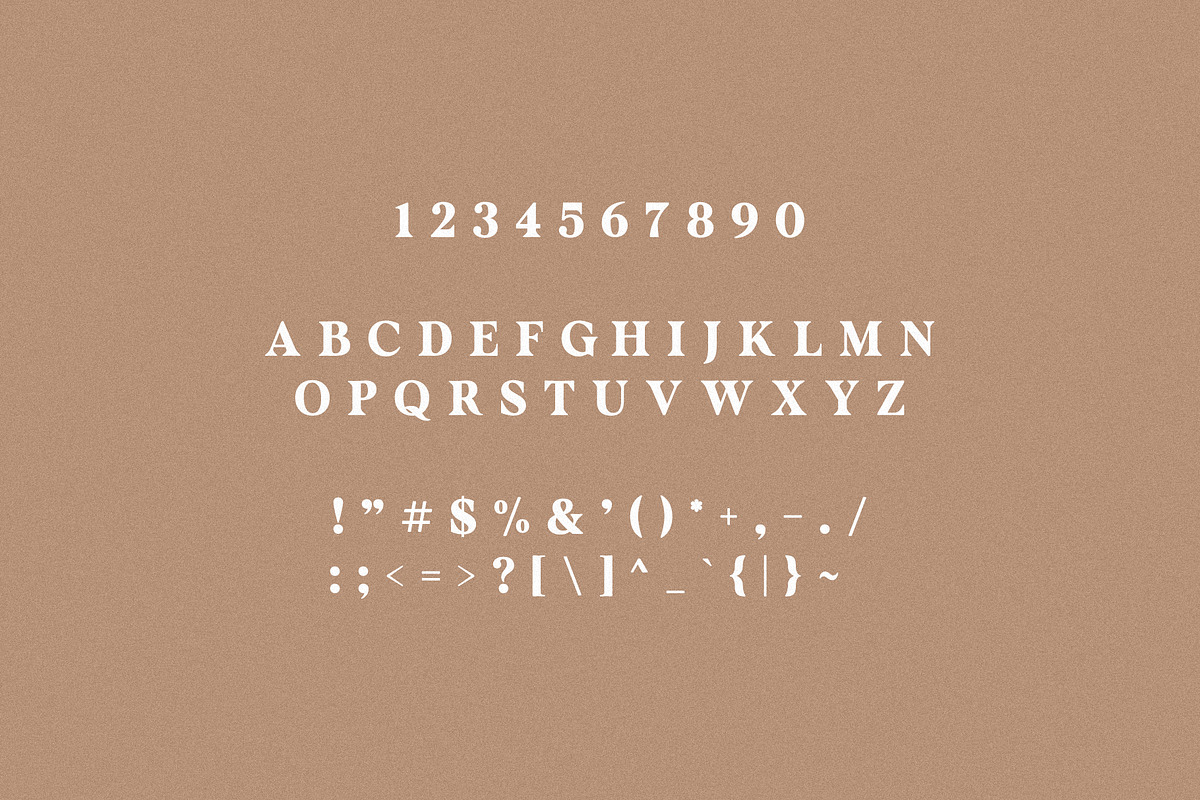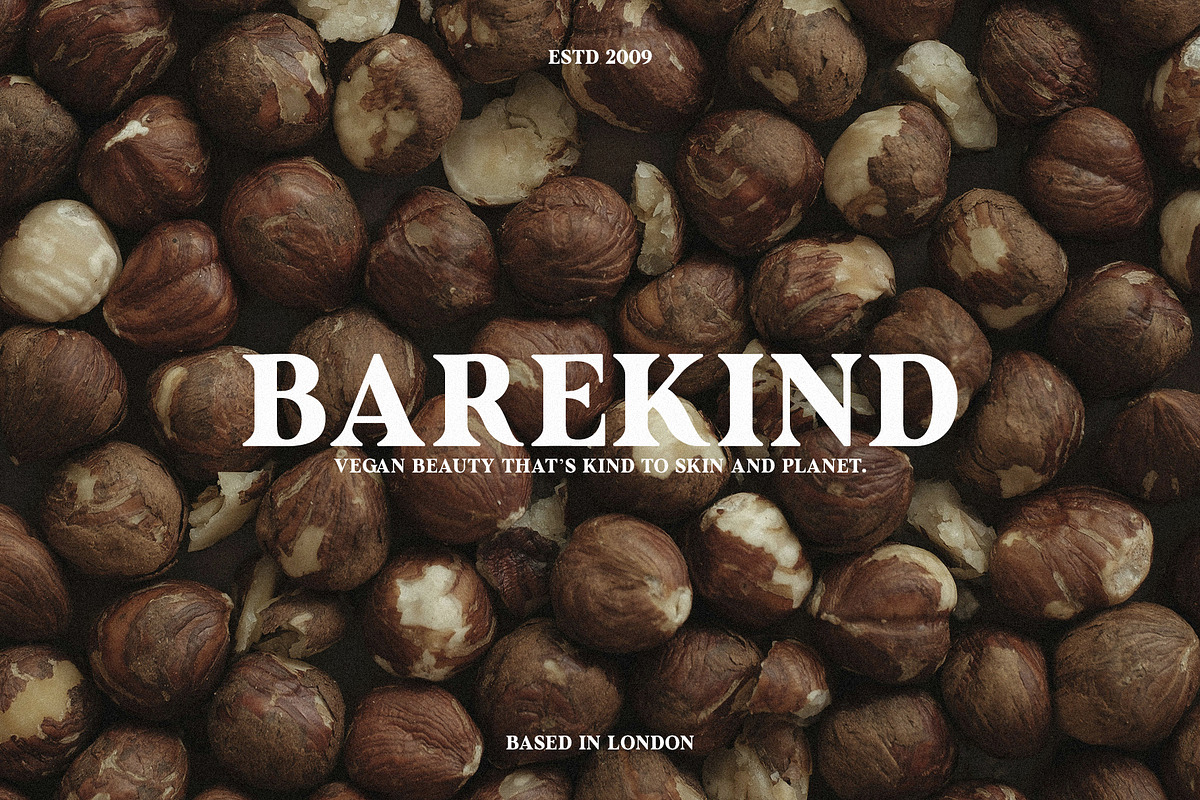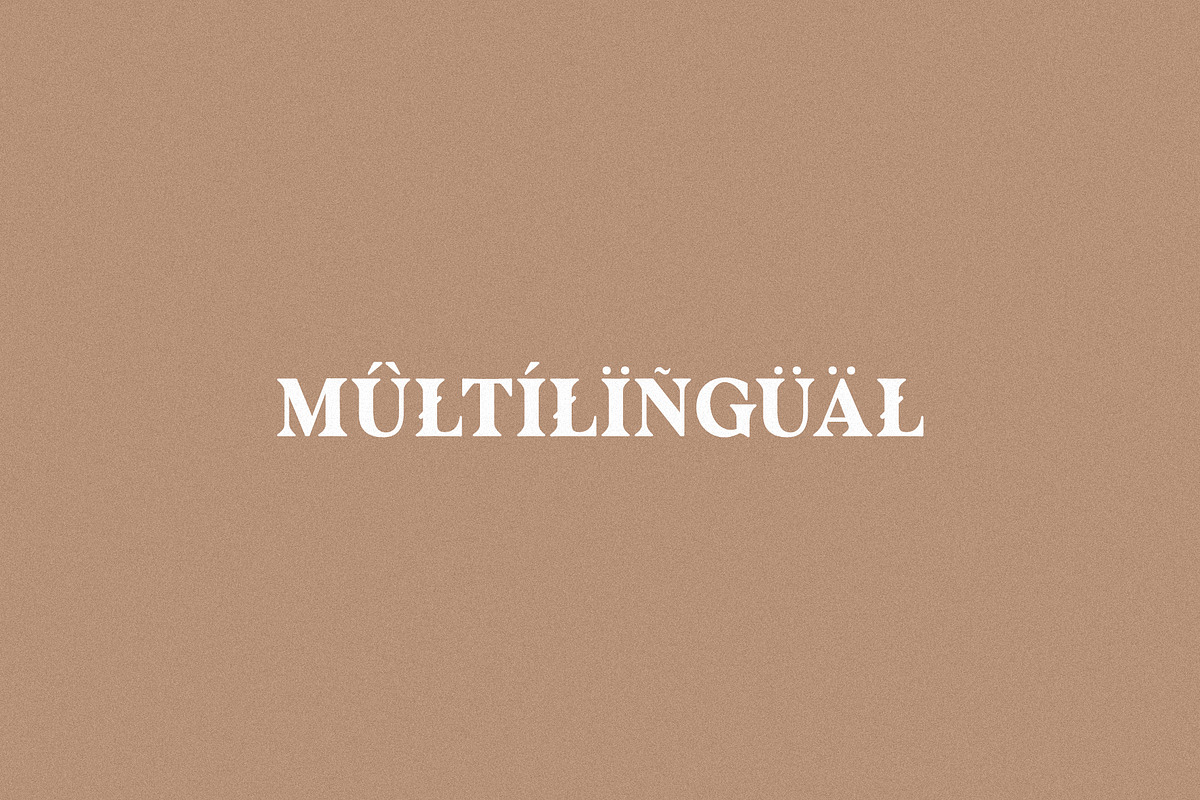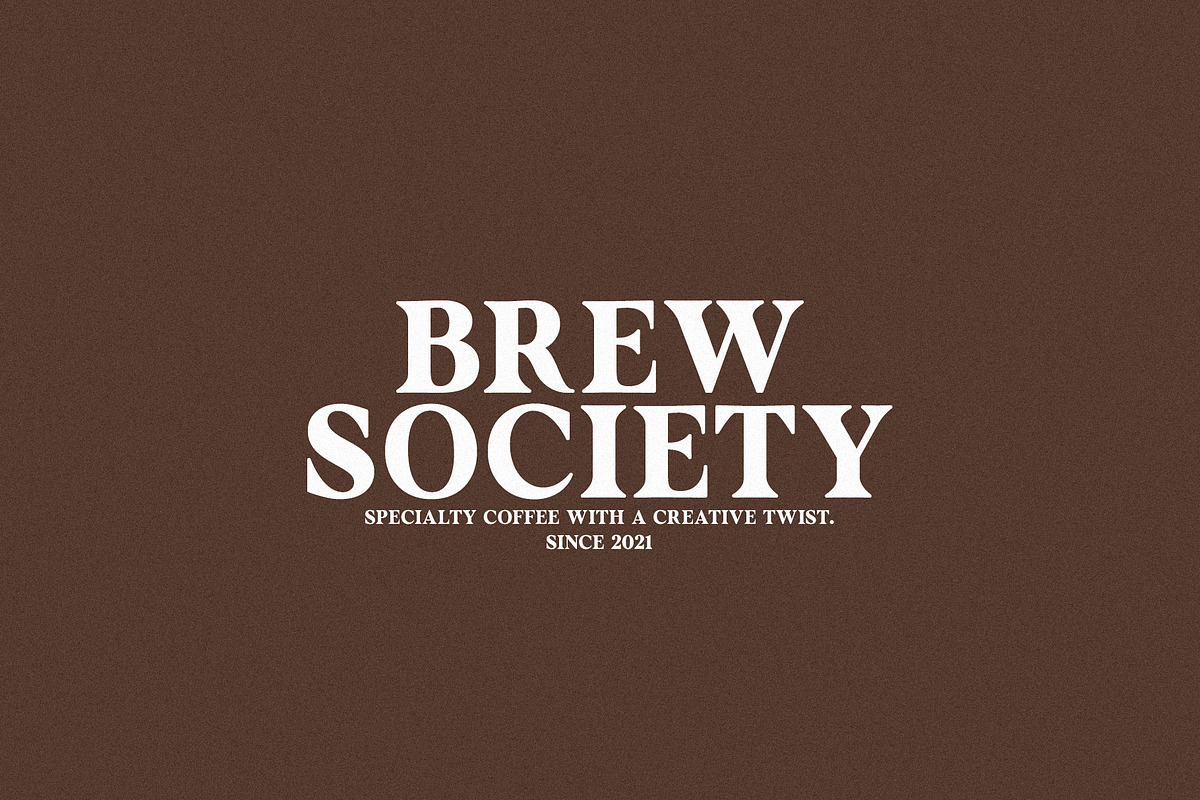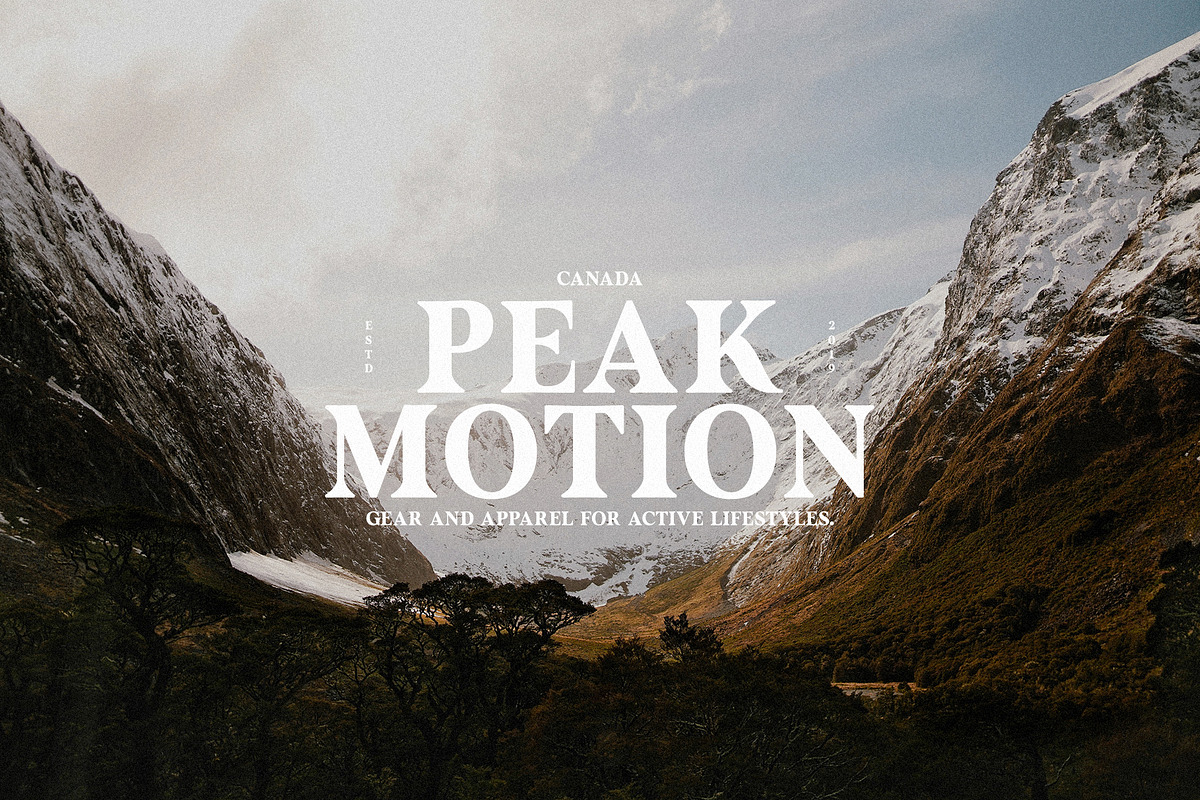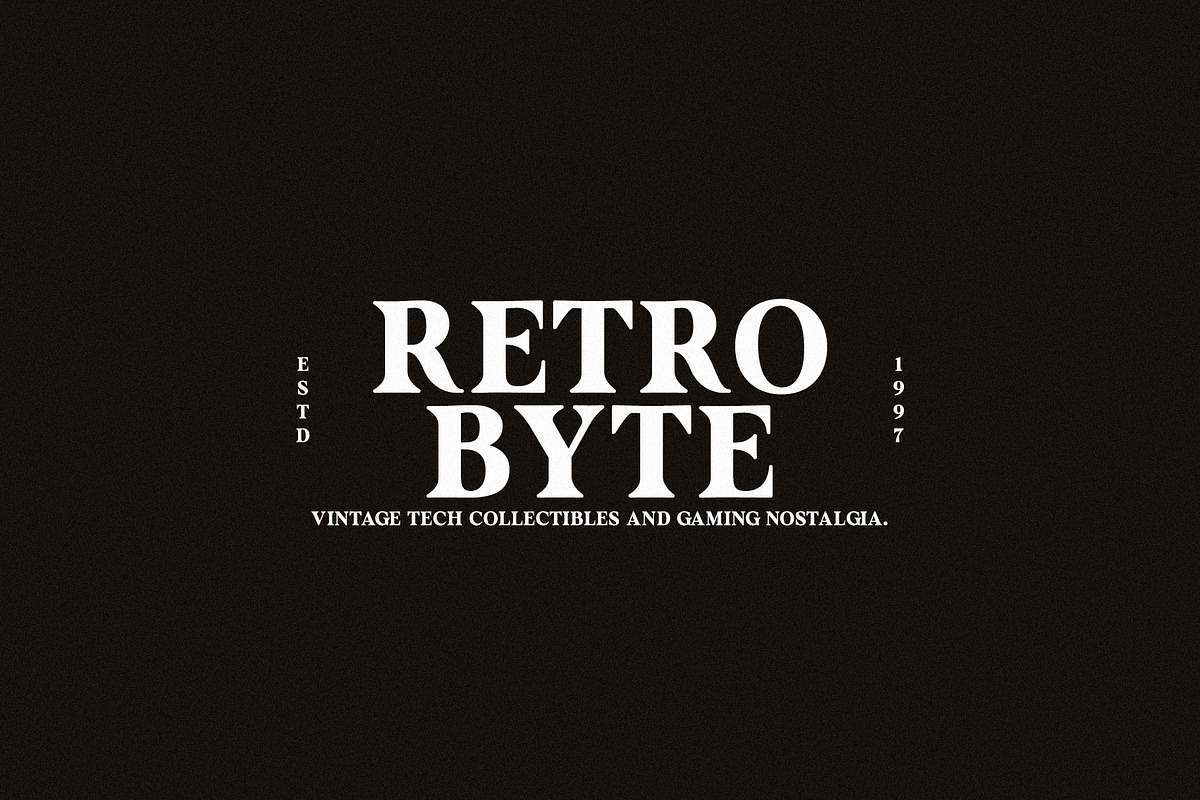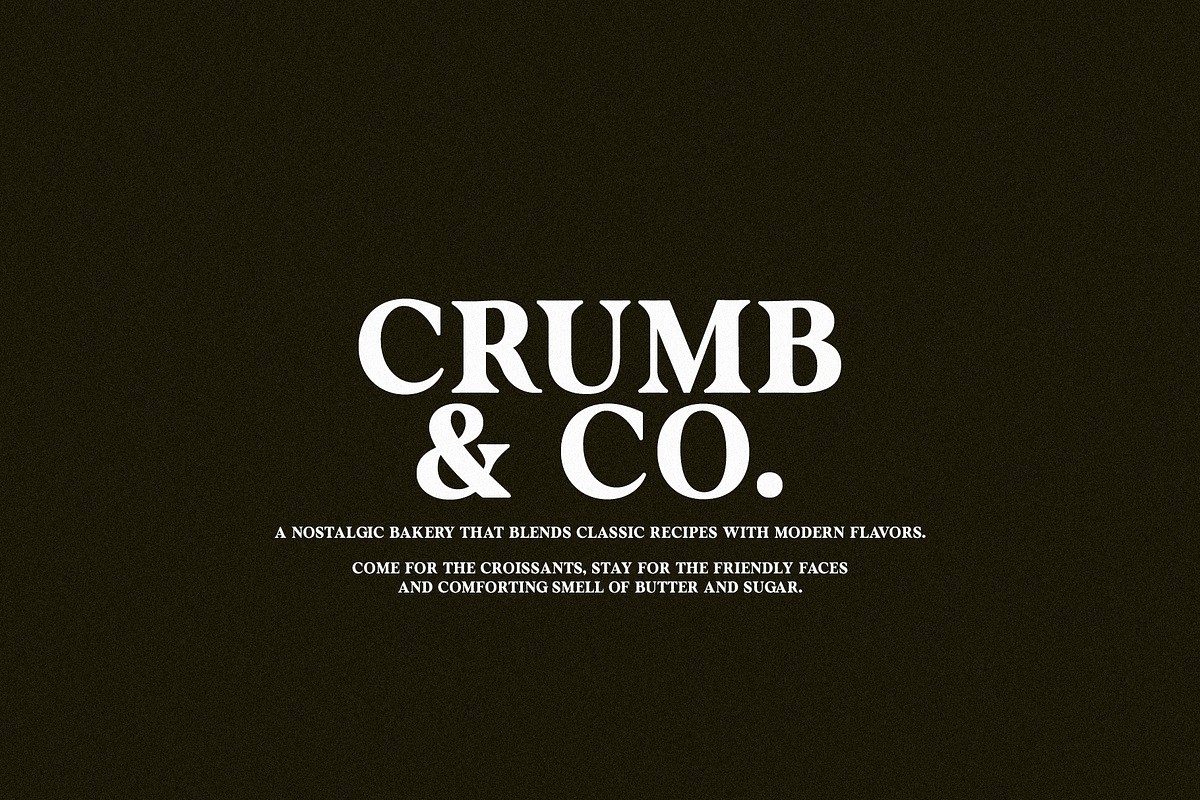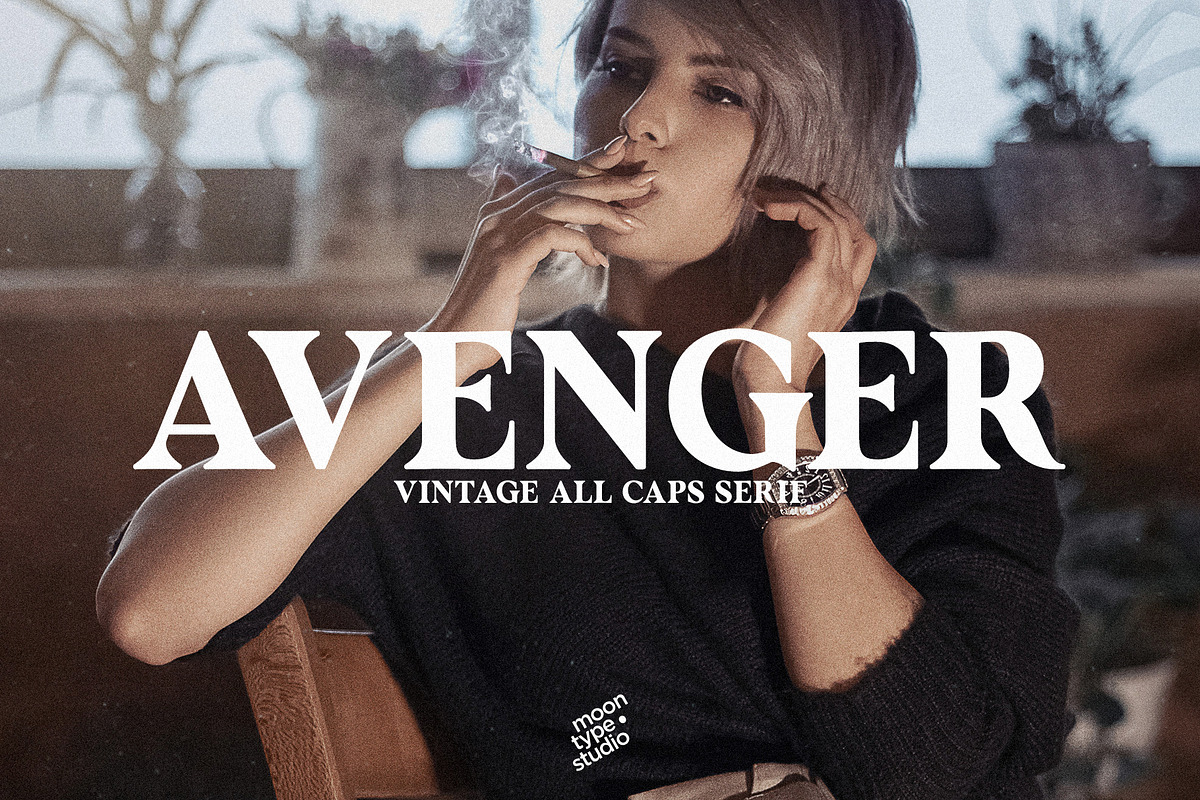
Avenger - Vintage Serif
Avenger - Vintage Serif is a bold, timeless typeface that captures the essence of classic design with a modern twist. Combining sharp, angular serifs with a vintage feel, it evokes a sense of strength and nostalgia. Perfect for both headlines and body text, this font effortlessly blends old-school elegance with contemporary style. Whether you’re designing for print, branding, or digital media, Avenger - Vintage Serif commands attention and adds a touch of sophistication to any project.